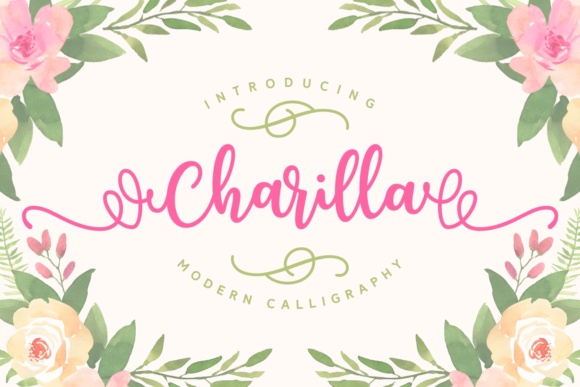
Introducing Charilla Font: A Timeless Calligraphy Classic with a Modern Twist
When it comes to creating visually stunning designs, the right font can make all the difference. In the world of typography, calligraphy fonts have always been a popular choice for designers looking to add a touch of elegance and sophistication to their work. One such font that has been making waves in the design community is Charilla Font. In this article, we’ll take a closer look at what makes Charilla a standout choice for designers and explore its features, benefits, and uses.
What is Charilla Font?
Charilla Font is a gorgeous, classical calligraphy font with a modern twist. Its unique blend of traditional and contemporary elements makes it a versatile choice for a wide range of design projects. The font features a nice round body with a medium thickness, giving it a smooth and refined appearance.
Charilla’s design is inspired by the classic calligraphy scripts of the past, but with a modern spin that makes it perfect for use in contemporary designs. Its elegant lines, flowing curves, and precise letterforms make it an excellent choice for creating beautiful, high-end designs that are sure to impress.
Key Features of Charilla Font
- Classical calligraphy style: Charilla Font is rooted in traditional calligraphy, with a focus on elegant lines, flowing curves, and precise letterforms.
- Modern twist: Despite its classical roots, Charilla has a modern feel that makes it perfect for use in contemporary designs.
- Round body: The font features a nice round body with a medium thickness, giving it a smooth and refined appearance.
- Versatile: Charilla is a versatile font that can be used in a wide range of design projects, from logos and branding to wedding invitations and packaging.
Benefits of Using Charilla Font
So why choose Charilla Font for your design projects? Here are just a few benefits of using this beautiful font:
- Create impressive designs quickly: With Charilla, you can create stunning designs in just seconds. Its elegant lines and precise letterforms make it easy to create beautiful text that is sure to impress.
- Add a touch of elegance: Charilla’s classical calligraphy style adds a touch of elegance and sophistication to any design, making it perfect for high-end brands and luxury products.
- Stand out from the crowd: With its unique blend of traditional and contemporary elements, Charilla Font is sure to make your designs stand out from the crowd.
- Easy to use: Charilla is a user-friendly font that is easy to install and use, even for designers who are new to calligraphy fonts.
Uses of Charilla Font
So what can you use Charilla Font for? The possibilities are endless! Here are just a few ideas to get you started:
- Logos and branding: Charilla’s elegant lines and precise letterforms make it a great choice for logos and branding projects.
- Wedding invitations: Charilla’s classical calligraphy style makes it perfect for wedding invitations, save-the-dates, and other wedding stationery.
- Packaging: Charilla can add a touch of elegance and sophistication to packaging designs, making it perfect for luxury products.
- Advertising: Charilla’s unique blend of traditional and contemporary elements makes it a great choice for advertising projects, such as billboards, magazine ads, and social media graphics.
Tips and Tricks for Using Charilla Font
Here are a few tips and tricks for getting the most out of Charilla Font:
- Use it sparingly: Charilla is a bold font, so use it sparingly to avoid overwhelming your design.
- Experiment with colors: Charilla looks great in a variety of colors, so don’t be afraid to experiment and find the perfect hue for your design.
- Pair it with other fonts: Charilla can be paired with other fonts to create a unique and interesting design.
- Pay attention to spacing: Make sure to pay attention to spacing when using Charilla, as it can affect the overall look and feel of your design.
In conclusion, Charilla Font is a beautiful, versatile font that is perfect for designers looking to add a touch of elegance and sophistication to their work. Its unique blend of traditional and contemporary elements makes it a standout choice for a wide range of design projects, from logos and branding to wedding invitations and packaging. With its ease of use, elegant lines, and precise letterforms, Charilla is sure to become a go-to font for designers everywhere.